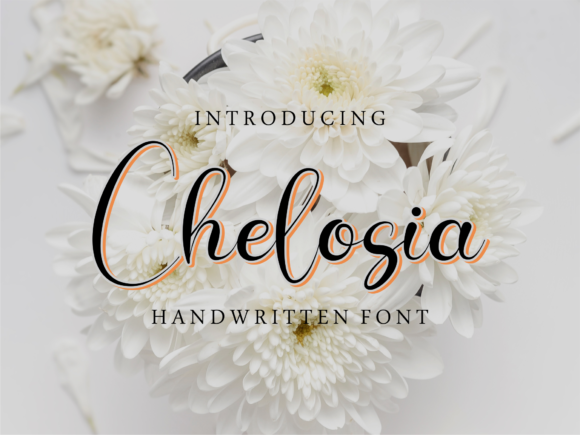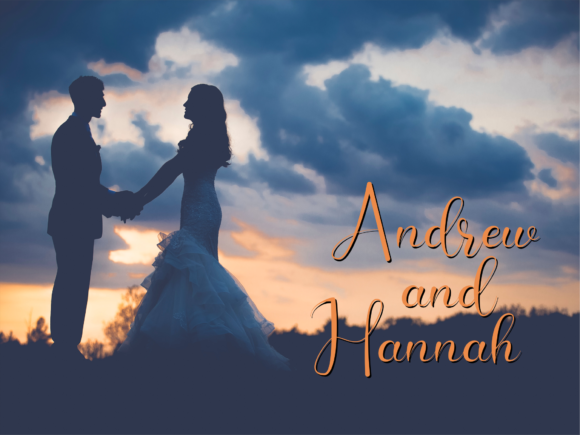
Chelosia Script Font
Chelosia is a stunning script font, handwritten to give your designs an approachable yet romantic sensibility. This font is beautiful and calligraphic, with legibility that makes it useful in a wide range of creative projects.
Classification: | Handwritten, Script |